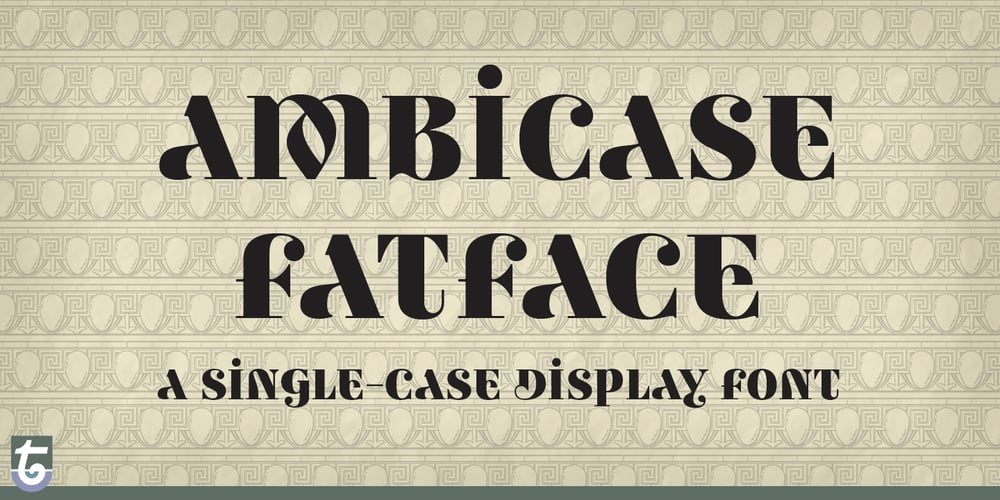
Ambicase Fatface Font Family was designed by Craig Eliason and published by Teeline Fonts. Ambicase Fatface contains 2 styles and family package options. Most fonts include uppercase and lowercase letters. Some experimentally-minded designers have proposed unicase typefaces as well: rather than having two different forms for a given letter, unicase fonts have one, chosen from the upper- or lowercase forms. Ambicase Fatface takes the next step, offering not “either/or”, but rather “both/and”. Each letter in Ambicase Fatface is a combination of its traditional upper- and lowercase forms, in an extra-bold style. Its inventive, hybrid forms are a bolder take on those of its 2010 sibling typeface, Ambicase Modern. Ambicase Fatface stands out as a carefully crafted experimental font: its eccentric forms do not hinder its readability. It is suitable for high-style display settings. Ambicase Fatface offers a large character set and extensive OpenType features. Most notably, in modern OpenType-aware applications, Ambicase Fatface can be set in swash mode, which features sophisticated decorative flourishes that differ depending on whether the letter is at the beginning, middle, or end of a word. Ambicase Fatface is available in two optical sizes: Regular and Poster. At very large sizes, the Poster cut, with its finer details, is recommended.